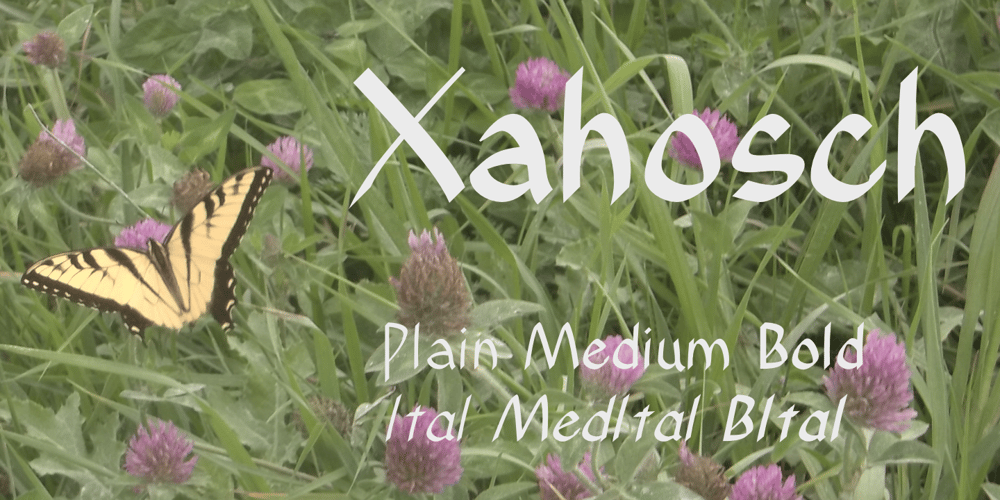
Xahosch Font Family was designed by Robert Schenk and published by Ingrimayne Type. Xahosch contains 6 styles and family package options. Xahosch uses a calligraphic pen to form a set of letters in which circular elements are based on a bottom-heavy egg shape. A pen-drawn san-serif face, it is available in three weights, each with an italic style.